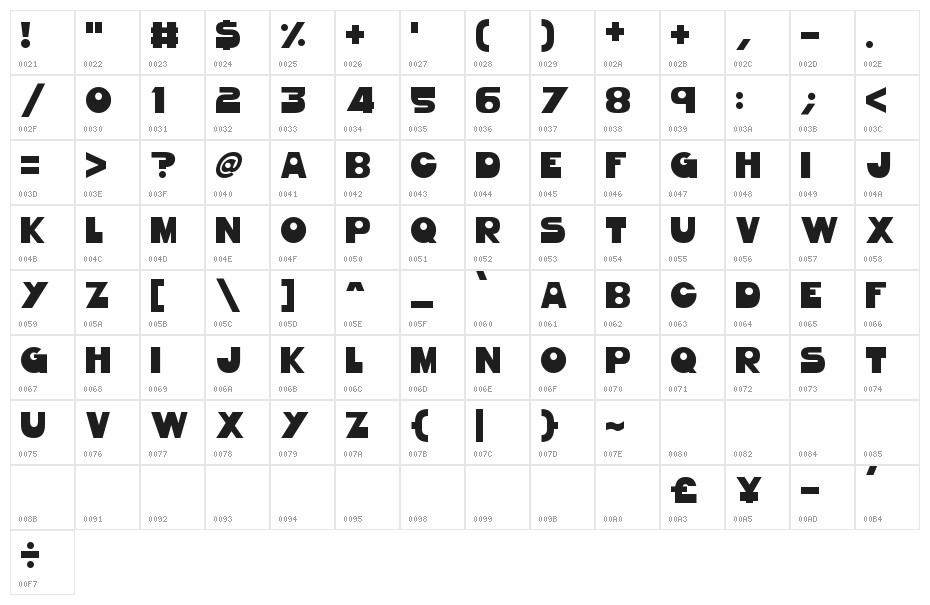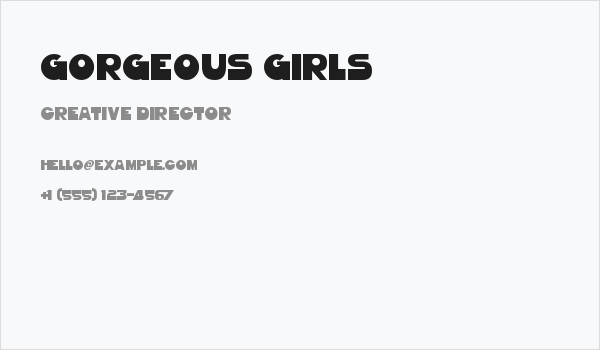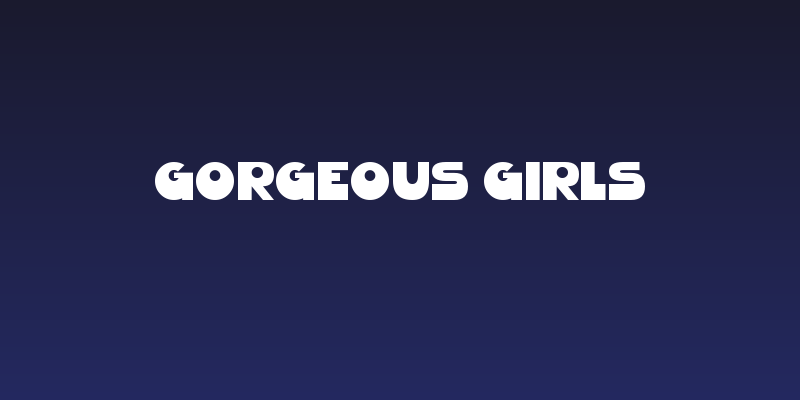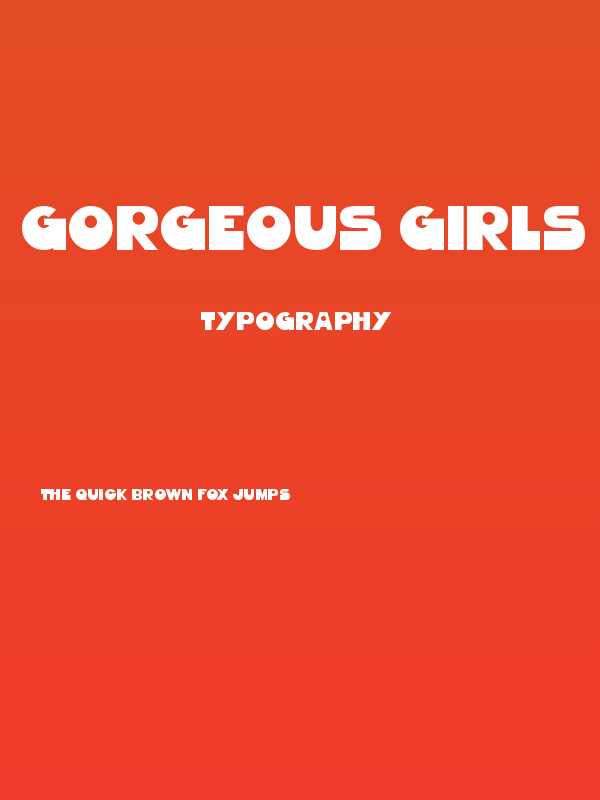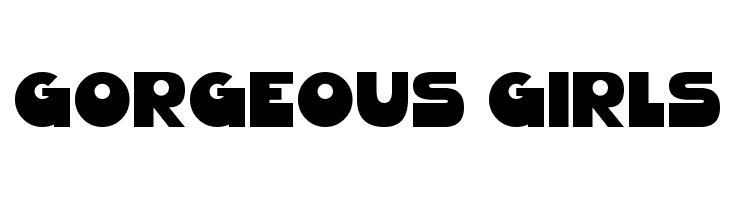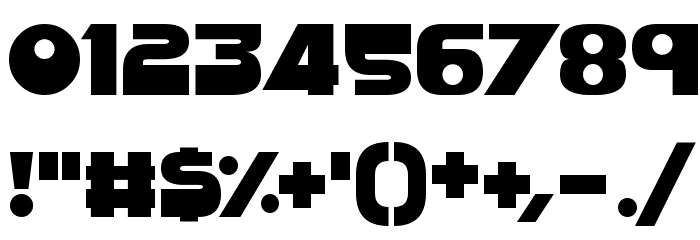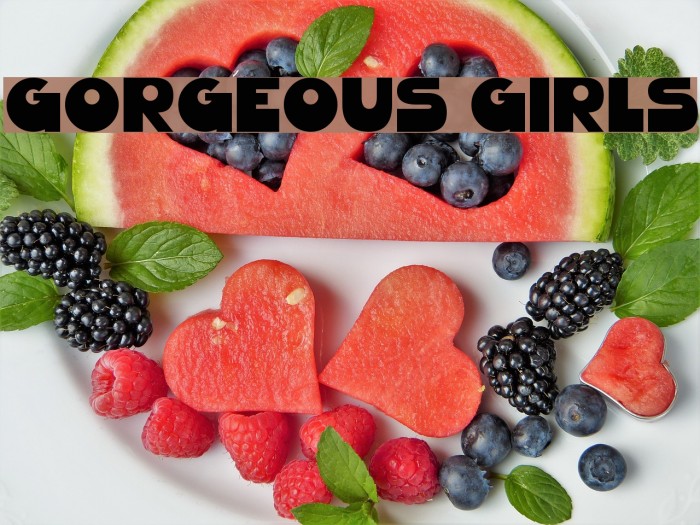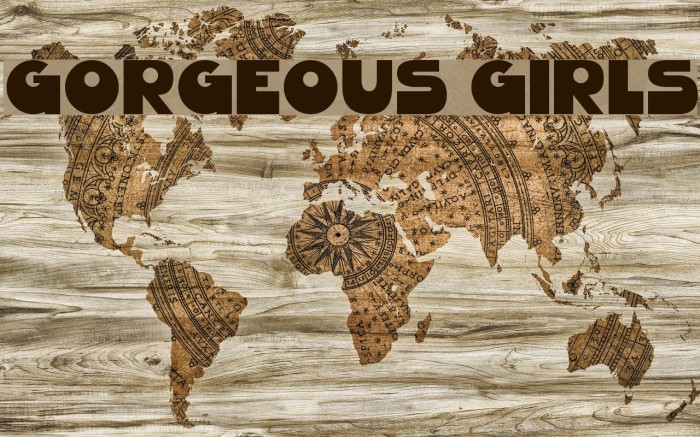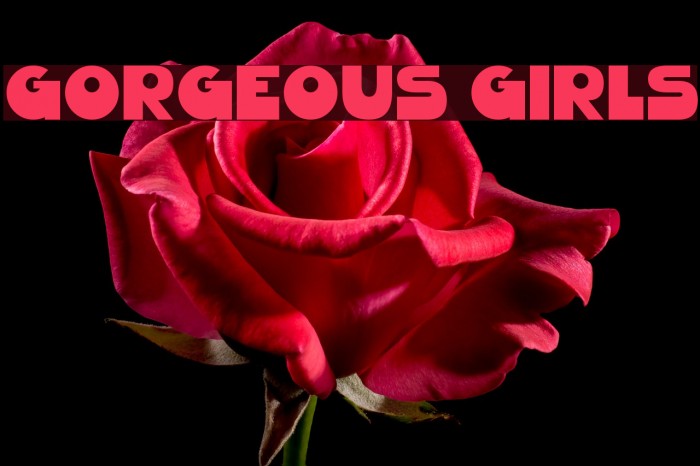
Gorgeous Girls Font
Gorgeous Girls Description
This font features a bold and impactful design with thick, uniform strokes that create a strong visual presence. The characters are wide and have a geometric structure, giving them a modern and assertive appearance. The uppercase letters are particularly striking, with a consistent height and width that enhances readability. The numerals and special characters maintain the same bold style, ensuring a cohesive look across all text elements. The font's design is clean and straightforward, making it suitable for various applications where a strong and confident typeface is desired.
| Proposed Projects | Ideal for headlines, posters, branding, and any project requiring a strong visual impact. |